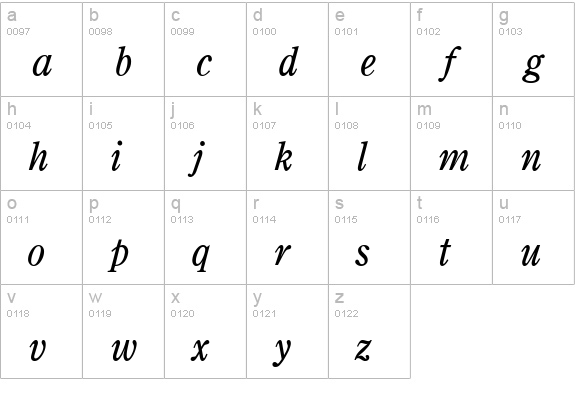
Century Italic is a distinctive, italic variant in the Century typeface family \xE2\x80\x94 well suited to design and typography projects.
Century Italic font is a beautifully crafted typeface that exudes elegance and sophistication. With its slanted and stylish letterforms, Century Italic adds a touch of flair to any design project. The graceful curves and subtle serifs of this font make it a perfect choice for adding a touch of class to invitations, branding materials, or editorial layouts. What's even better is that Century Italic font is available for free download at FontsMarket.com. Whether you're a designer looking to elevate your work or a hobbyist seeking a unique typeface, Century Italic is a versatile font that will surely make a statement. Download it today and let your creativity soar with this exquisite and freely accessible font.